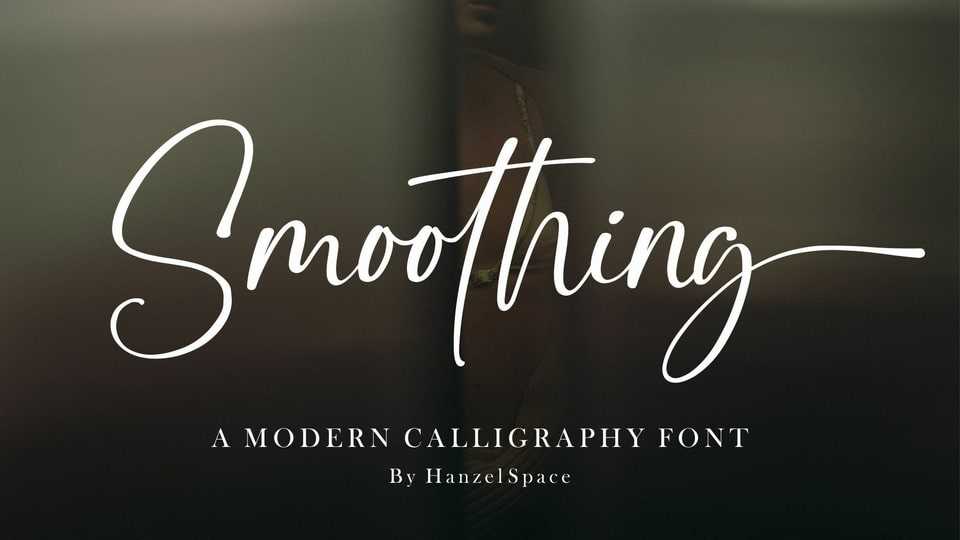
Download Smoothing font, a stylish modern calligraphic typeface in an original handwriting style. It’s perfect for branding, wedding invitations and cards, and maybe for red wine labels.